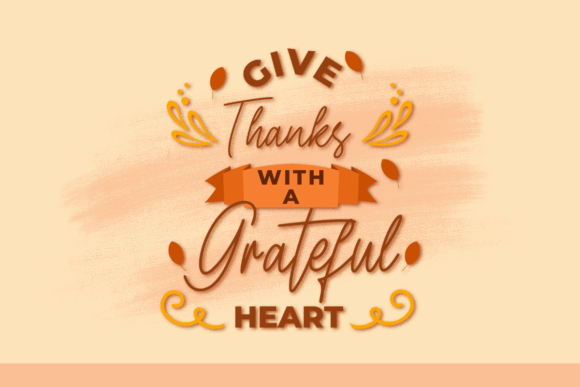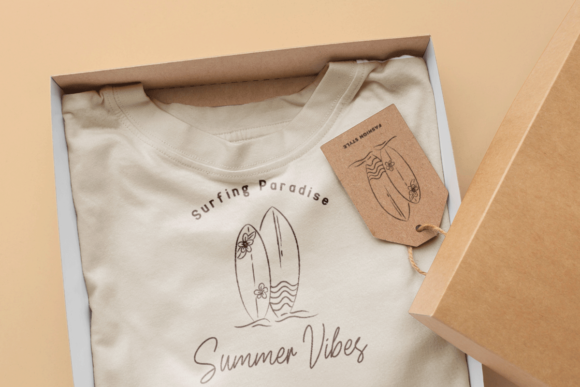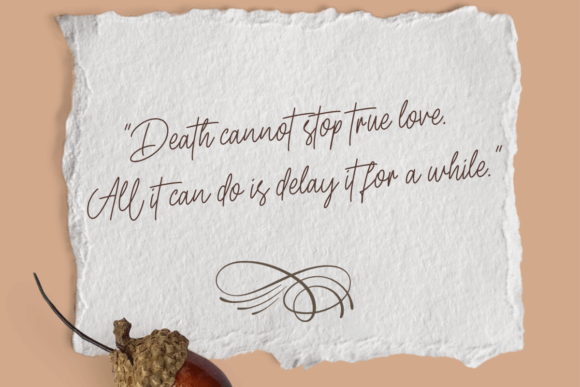
Introduction to Doria Signature Font
Doria Signature is distinct and fashionable script font.
It is perfectly suited for all quotes, greeting card, business card, wedding invitations, logos, lettering or t-shirt design materials This font is PUA encoded which means you can access all of the glyphs and swashes with ease.